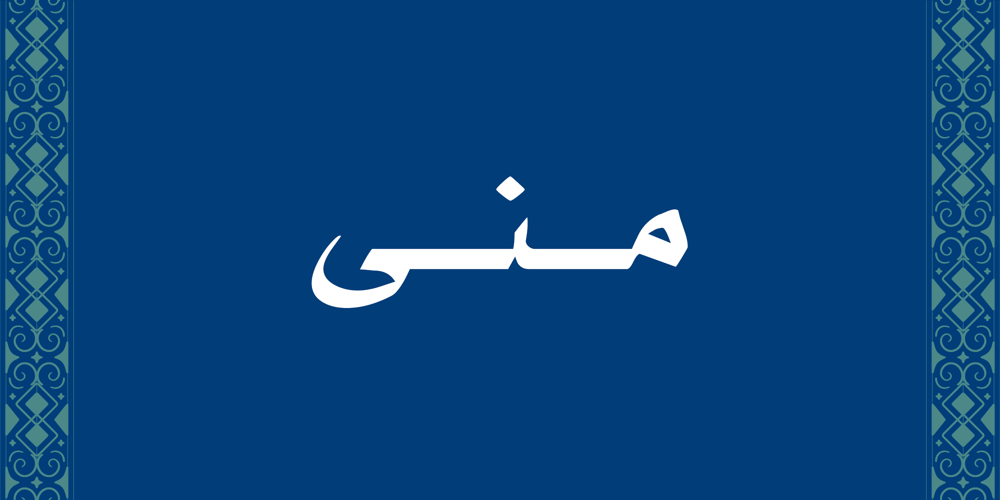
Muna
Muna font
Muna Font Family was designed by Abdalla Faris and published by Diwan Software. Muna contains 3 styles and family package options. Muna is a refined and versatile Arabic font that combines timeless sophistication with modern elegance. Inspired by classic serif fonts like Times, it’s perfect for both body text and headlines.